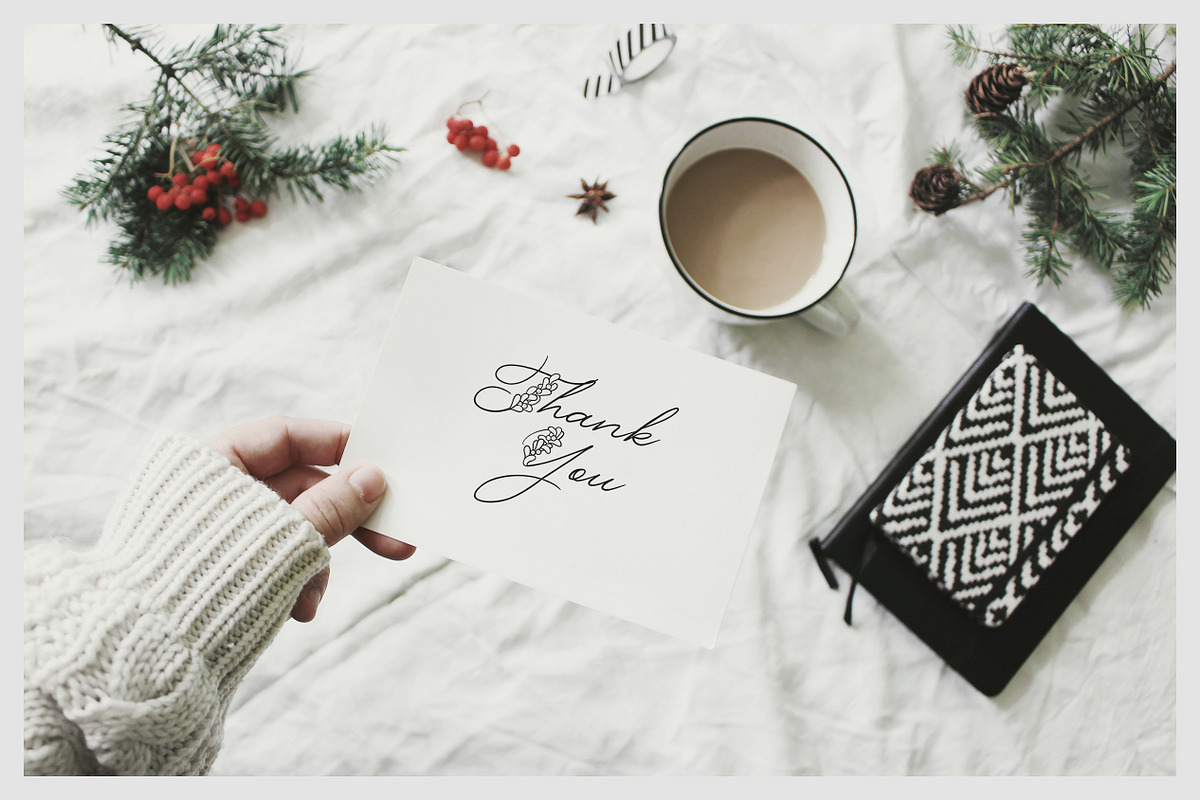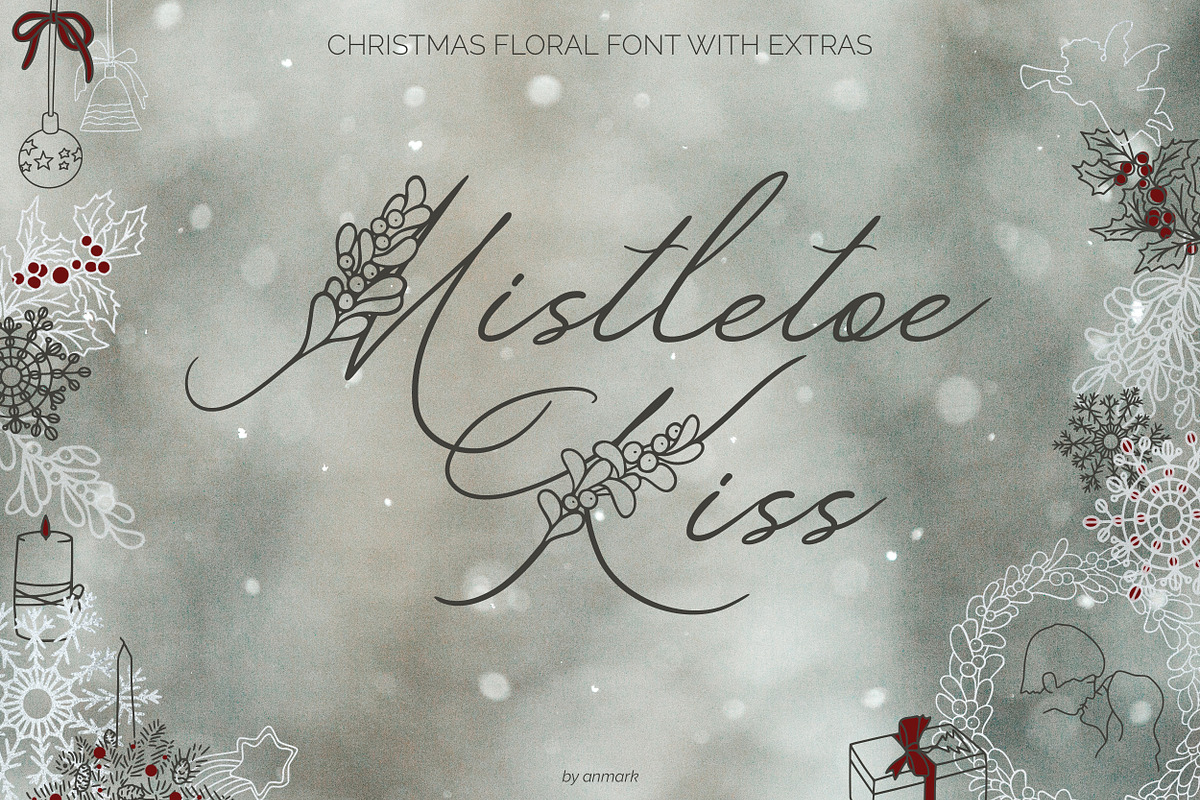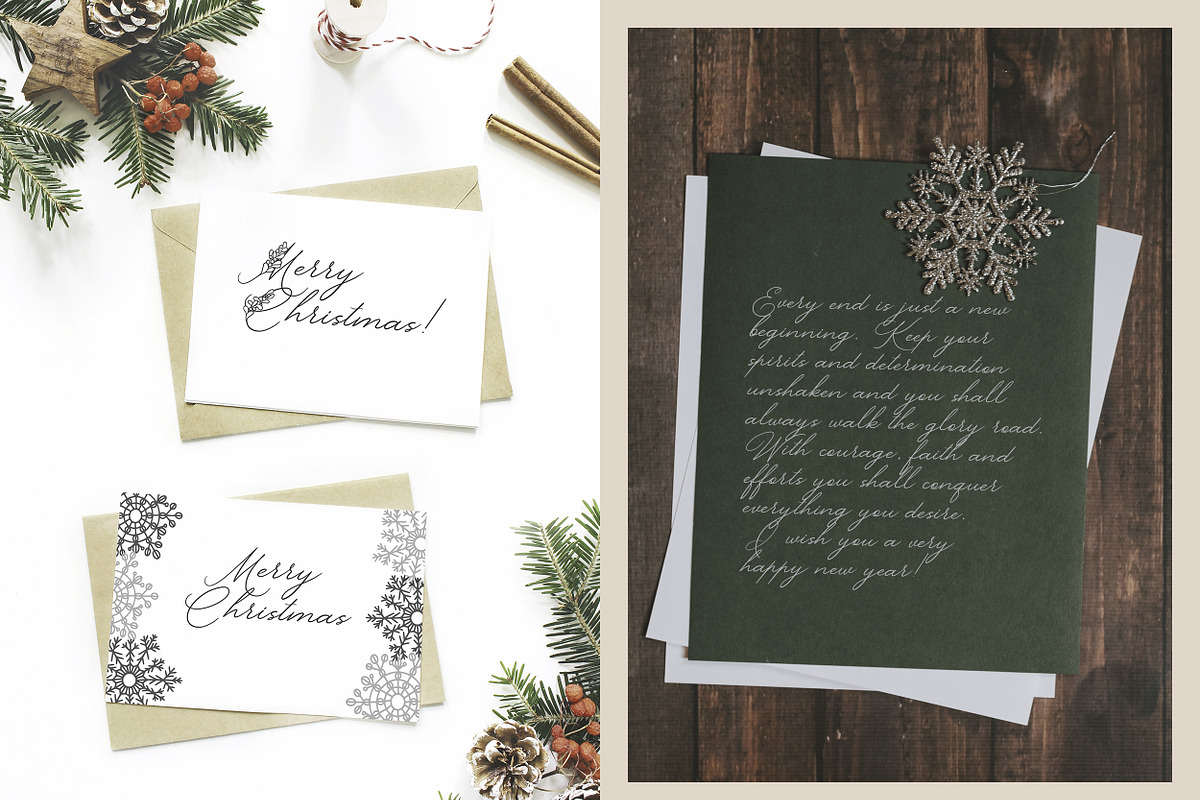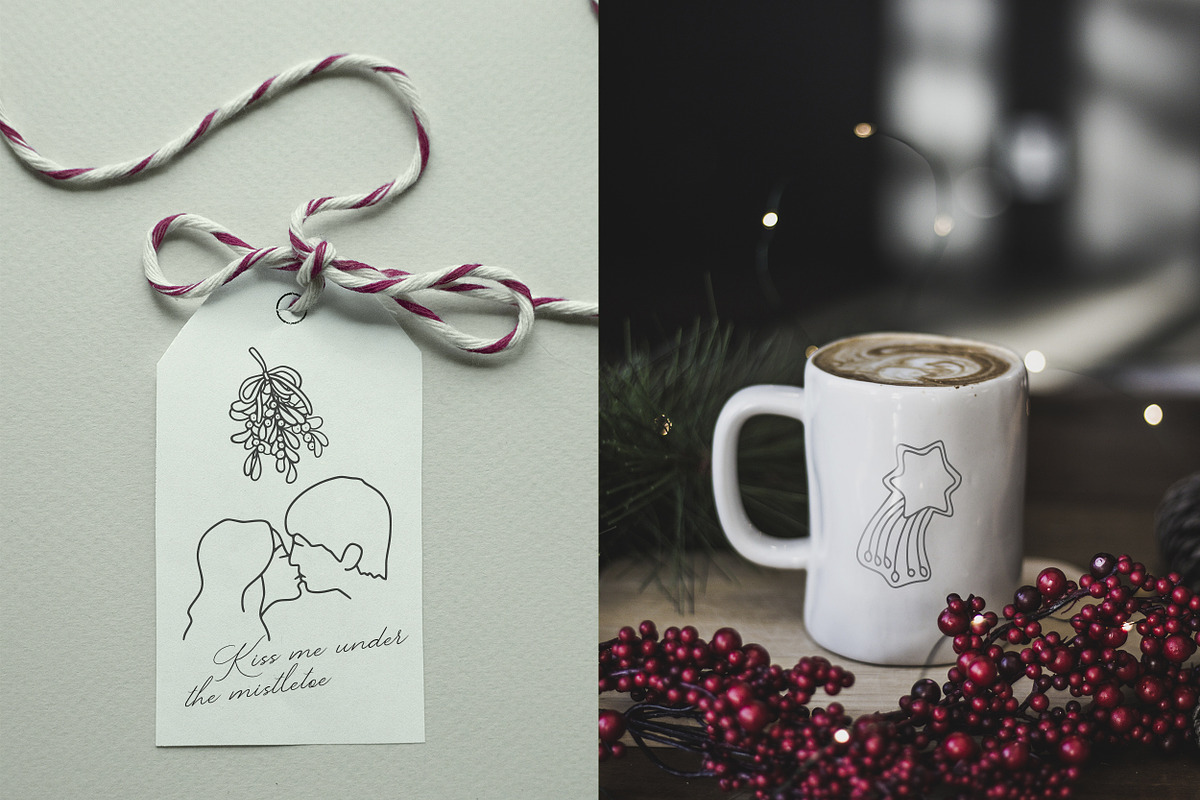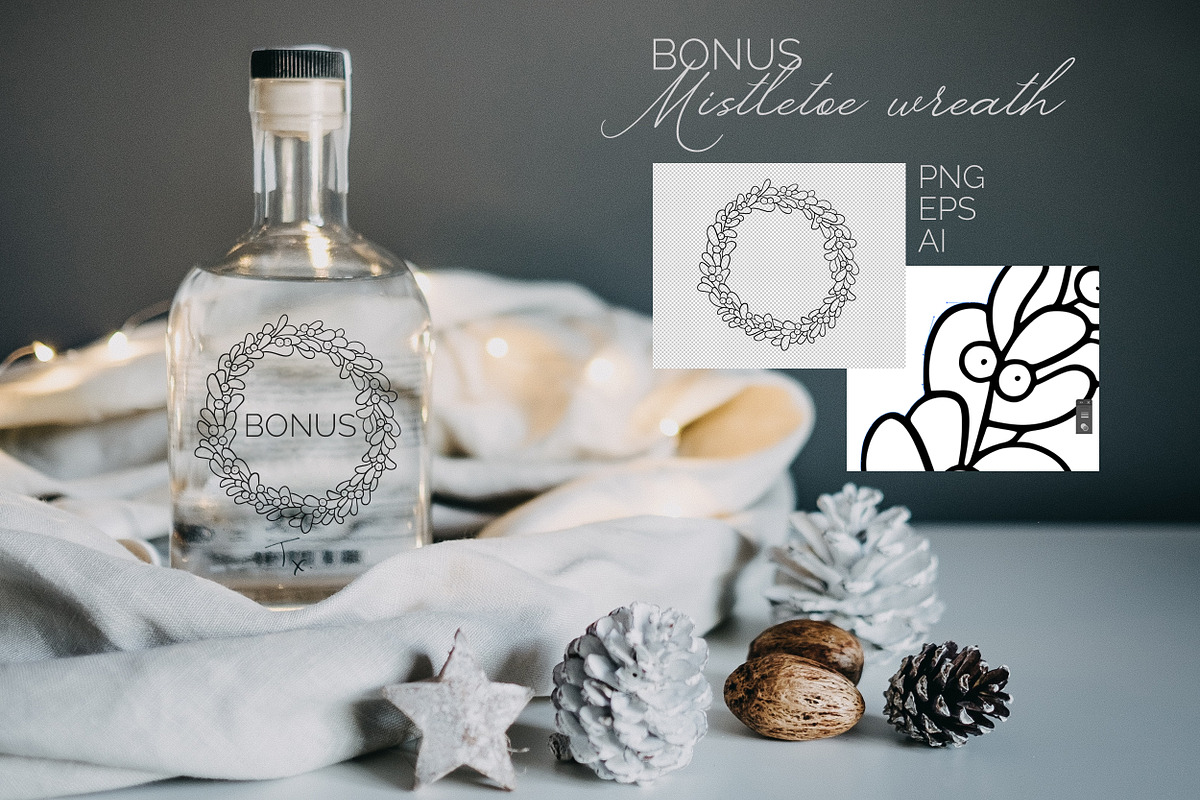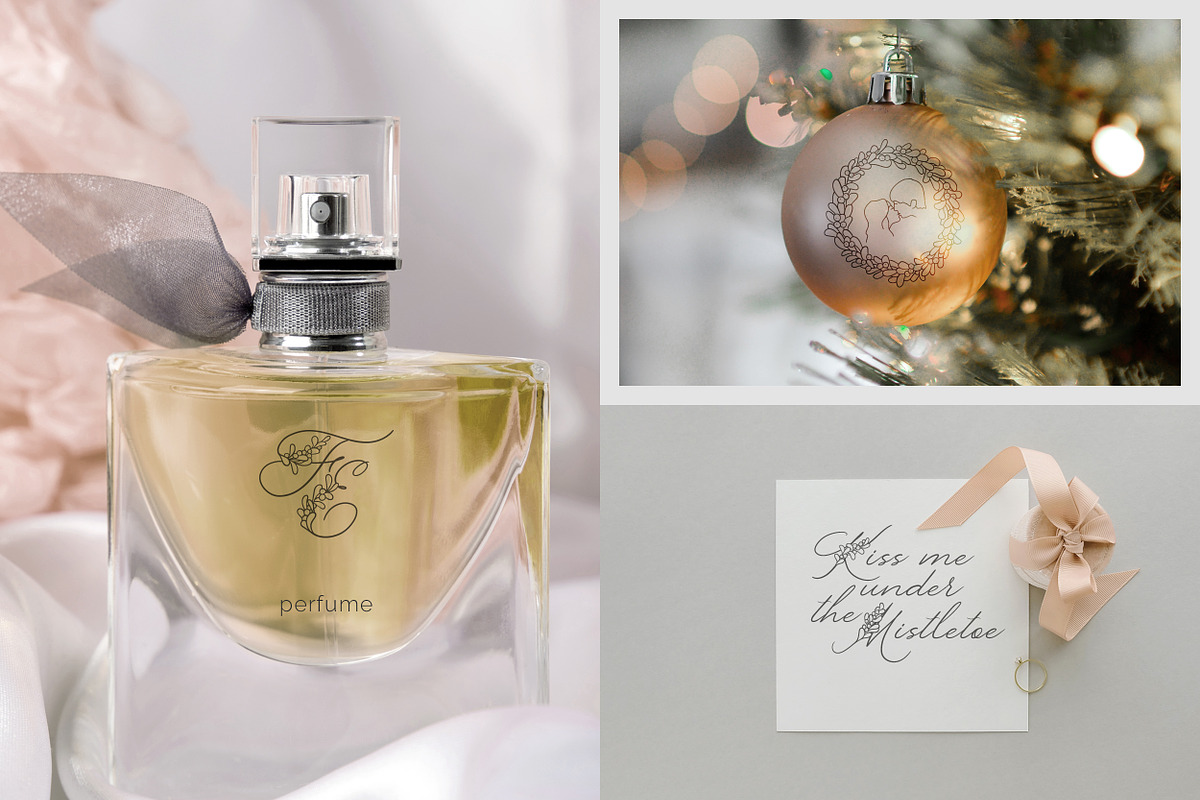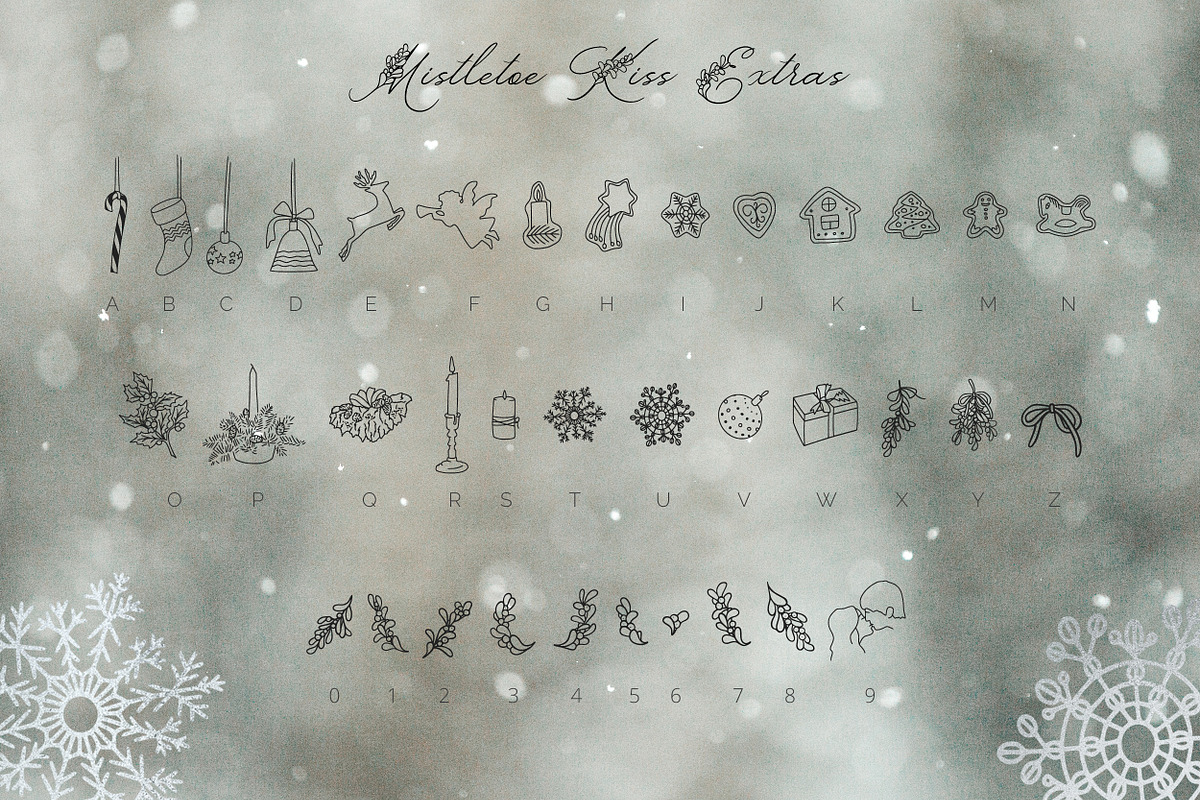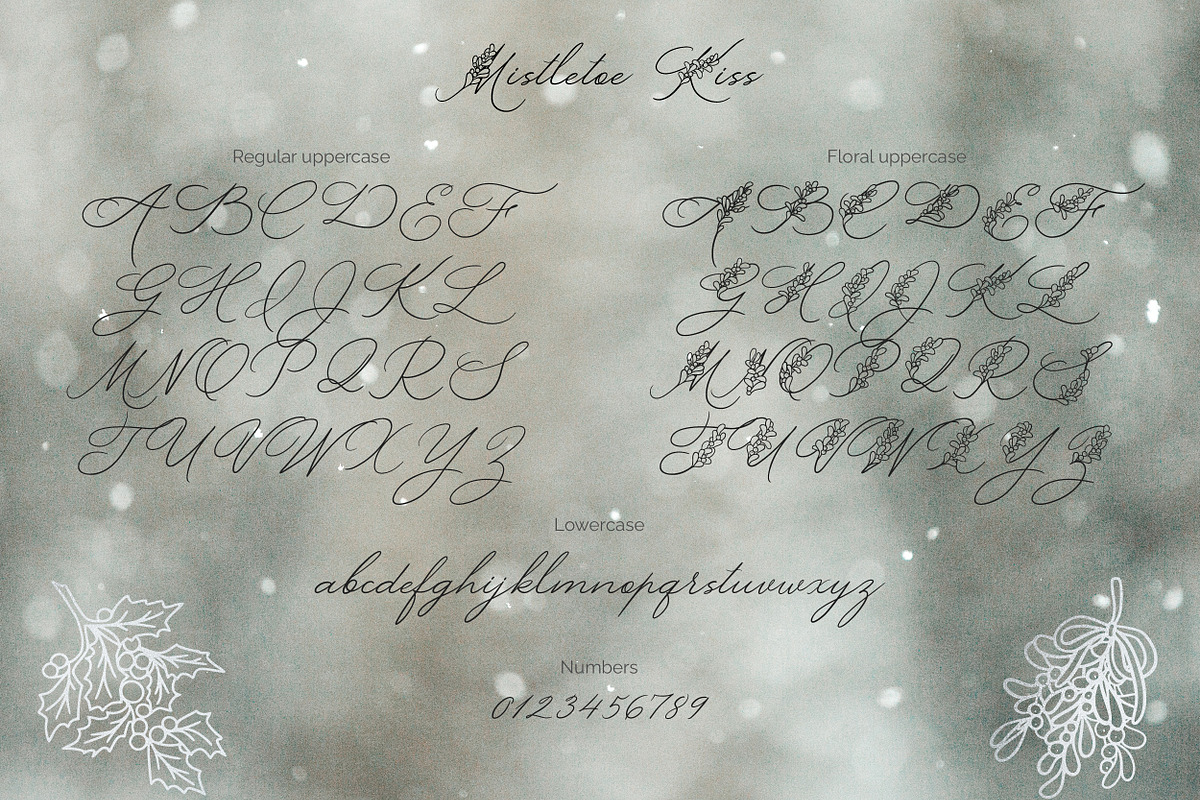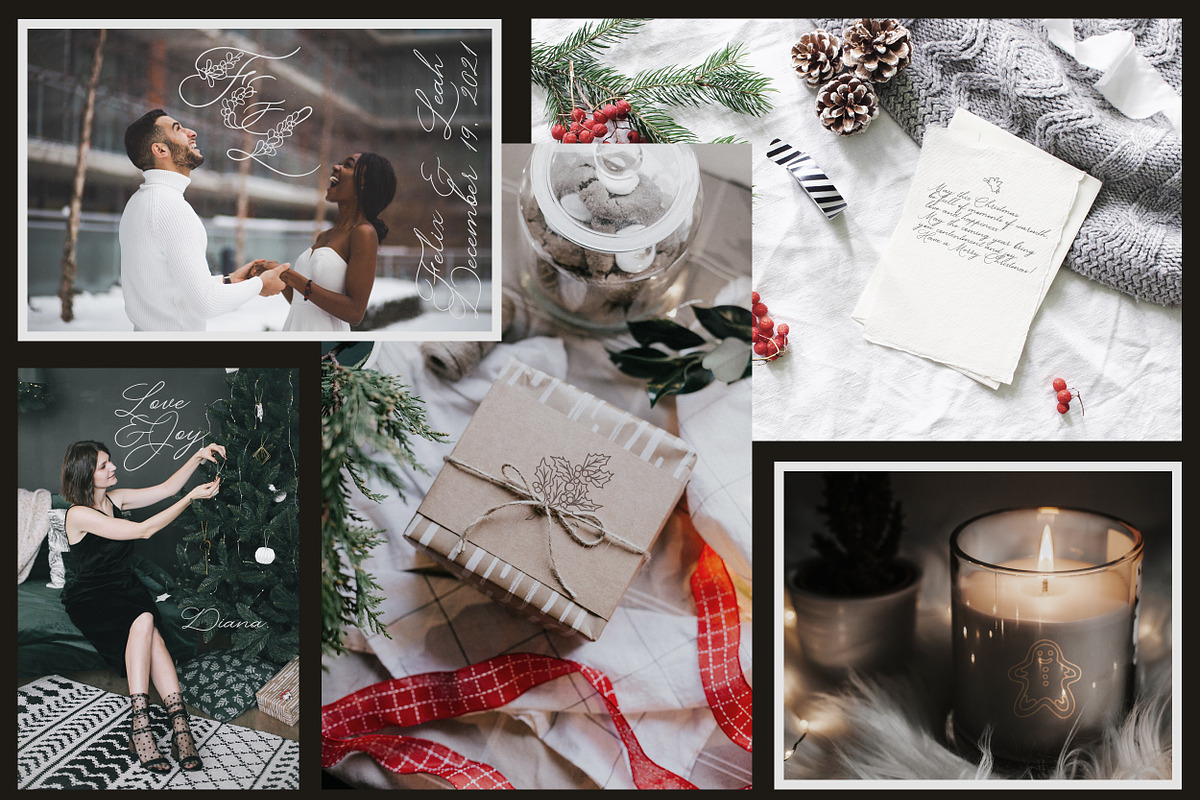
Mistletoe Kiss. Christmas font
Hello! I'm delighted to introduce my Christmas floral font, Mistletoe Kiss.
Mistletoe Kiss offers three styles: Floral, Regular, and Extras.
Mistletoe Kiss Floral is an elegant, decorative, handwritten font. The uppercase letters adorned with mistletoe branches are perfect for wedding monograms and logos. Use this font for Christmas cards, wedding invitations, branding, packaging, magazines, makeup businesses, social media, quotes, restaurant menus, greeting cards, flyers, banners, web headers, and more. It's ideal for adding a touch of elegance and festivity to various design projects.
Mistletoe Kiss Regular is a feminine calligraphy font style that works well for wedding design projects, Instagram, watermarks, titles, birthday invitations, signatures, letterpress addresses, jewelry, hotel businesses, and more. Whether you need to create longer texts or short phrases, this font adds a stylish and sophisticated look to your designs.
Mistletoe Kiss Extras is a symbol font that includes 36 hand-drawn Christmas elements. These characters can be used separately or in combination with Mistletoe Kiss Regular and Mistletoe Kiss Floral, as well as other fonts. The symbols are perfect for creating your own logo, greeting cards, photo overlays, scrapbooking, writing letters, and adding a playful touch to your designs.
Give your designs a festive and charming feel with the versatile Mistletoe Kiss font family, suitable for a wide range of creative purposes.